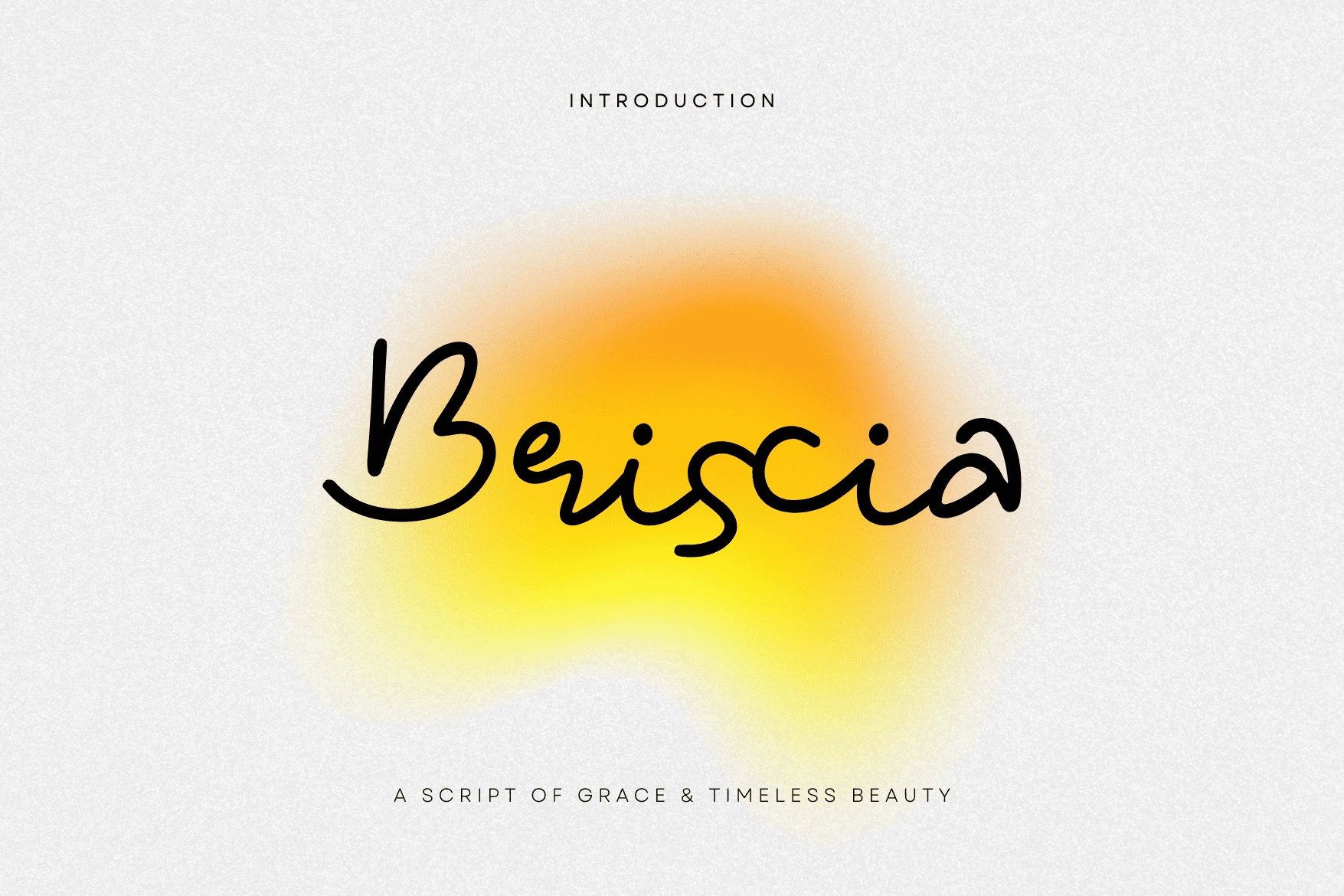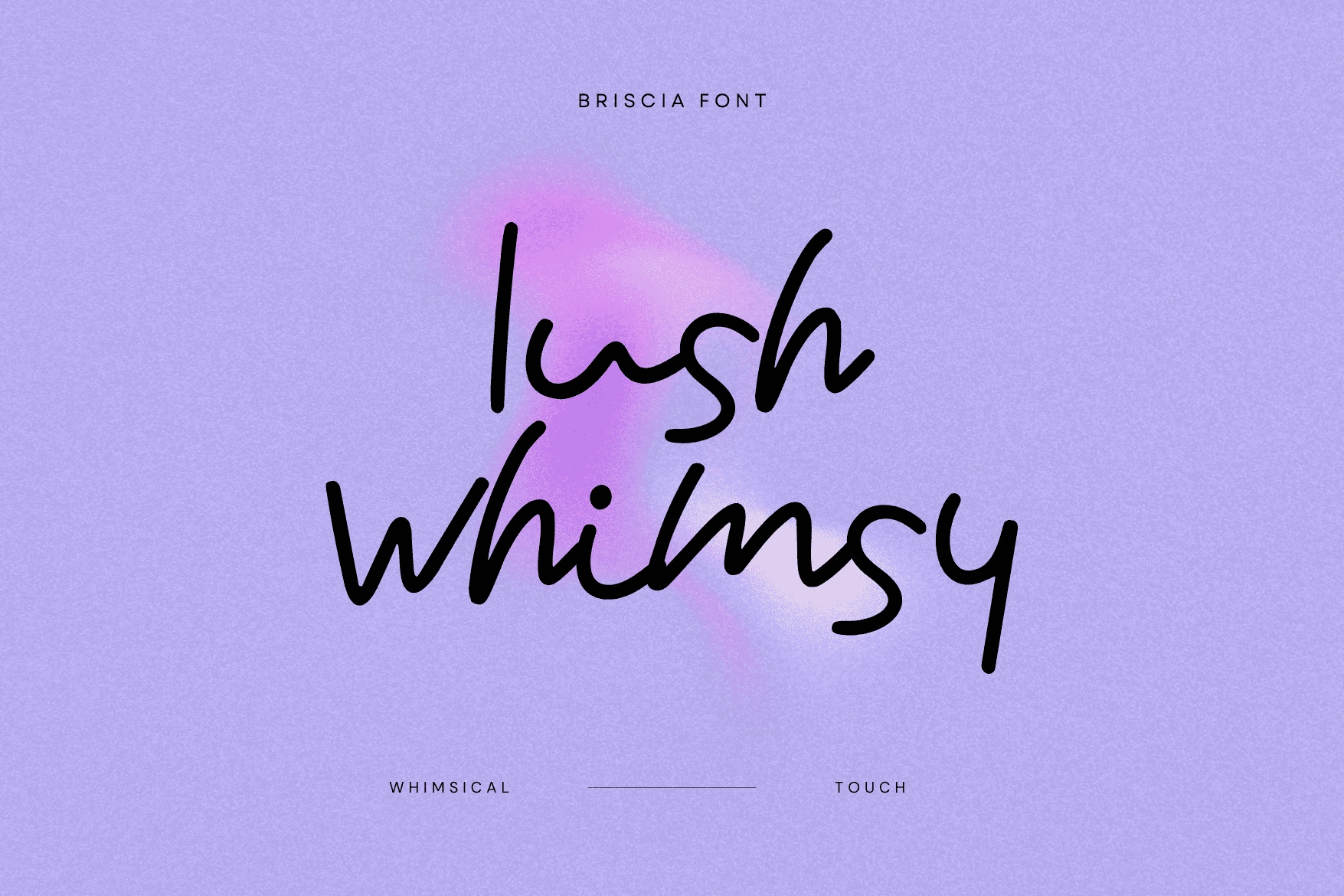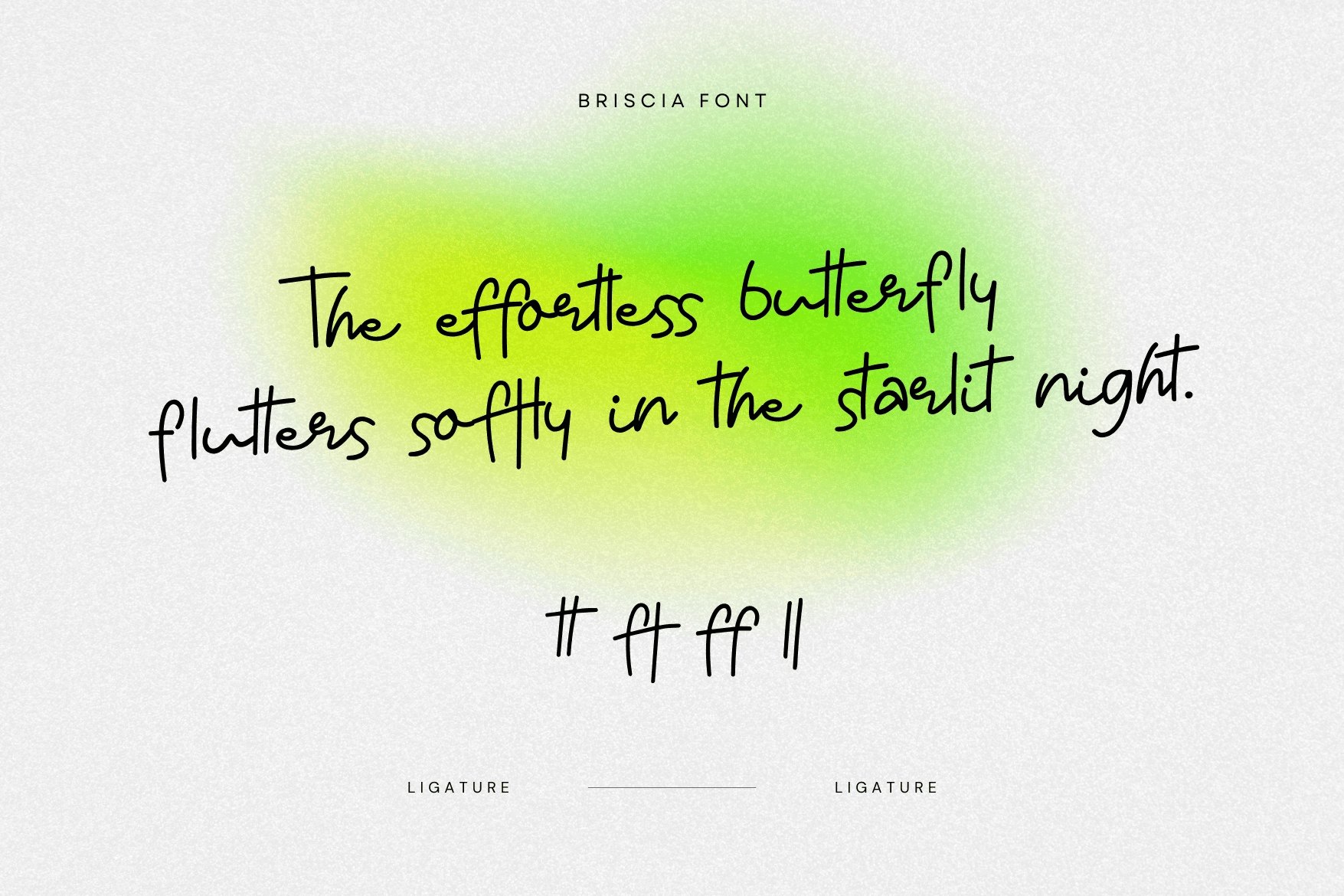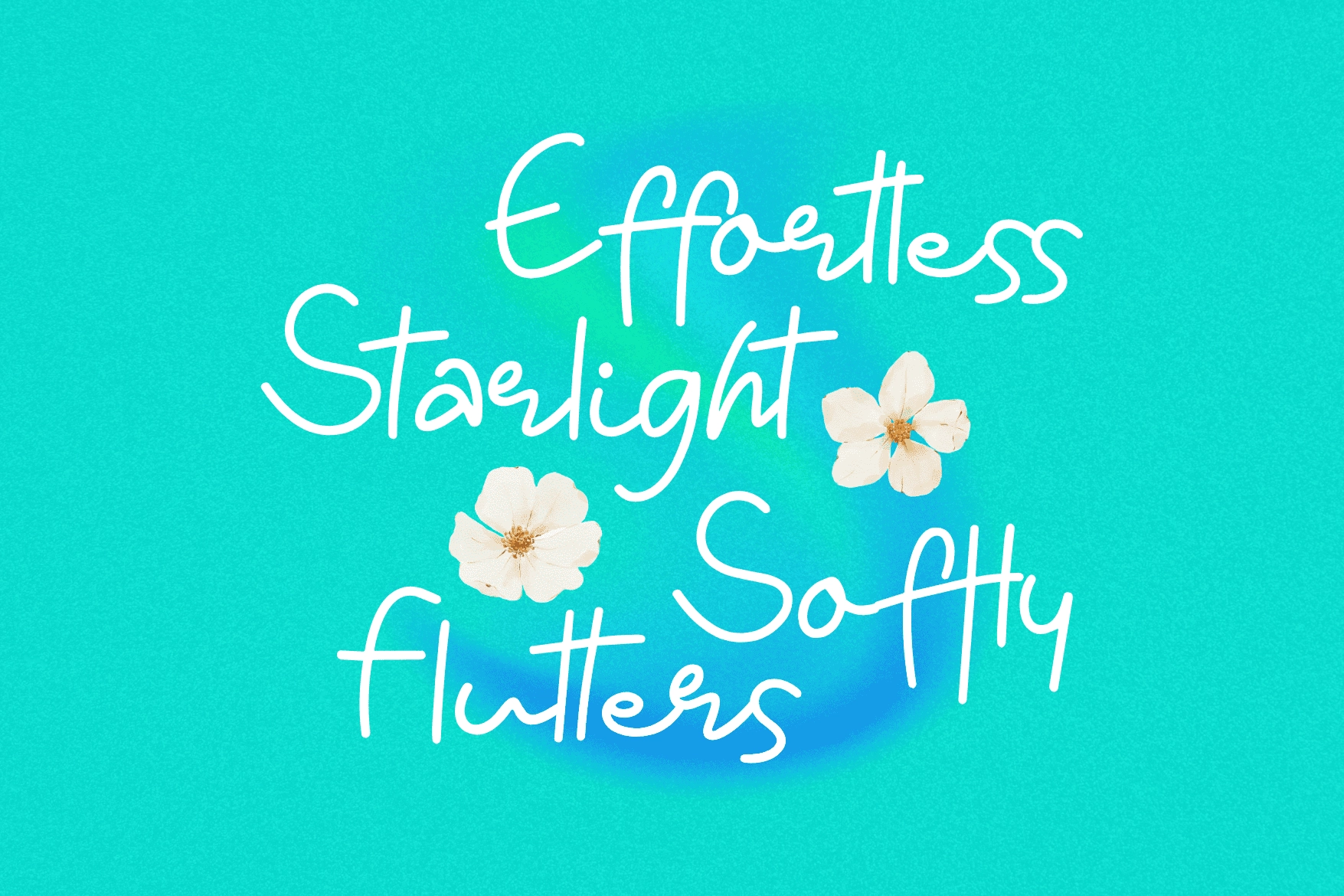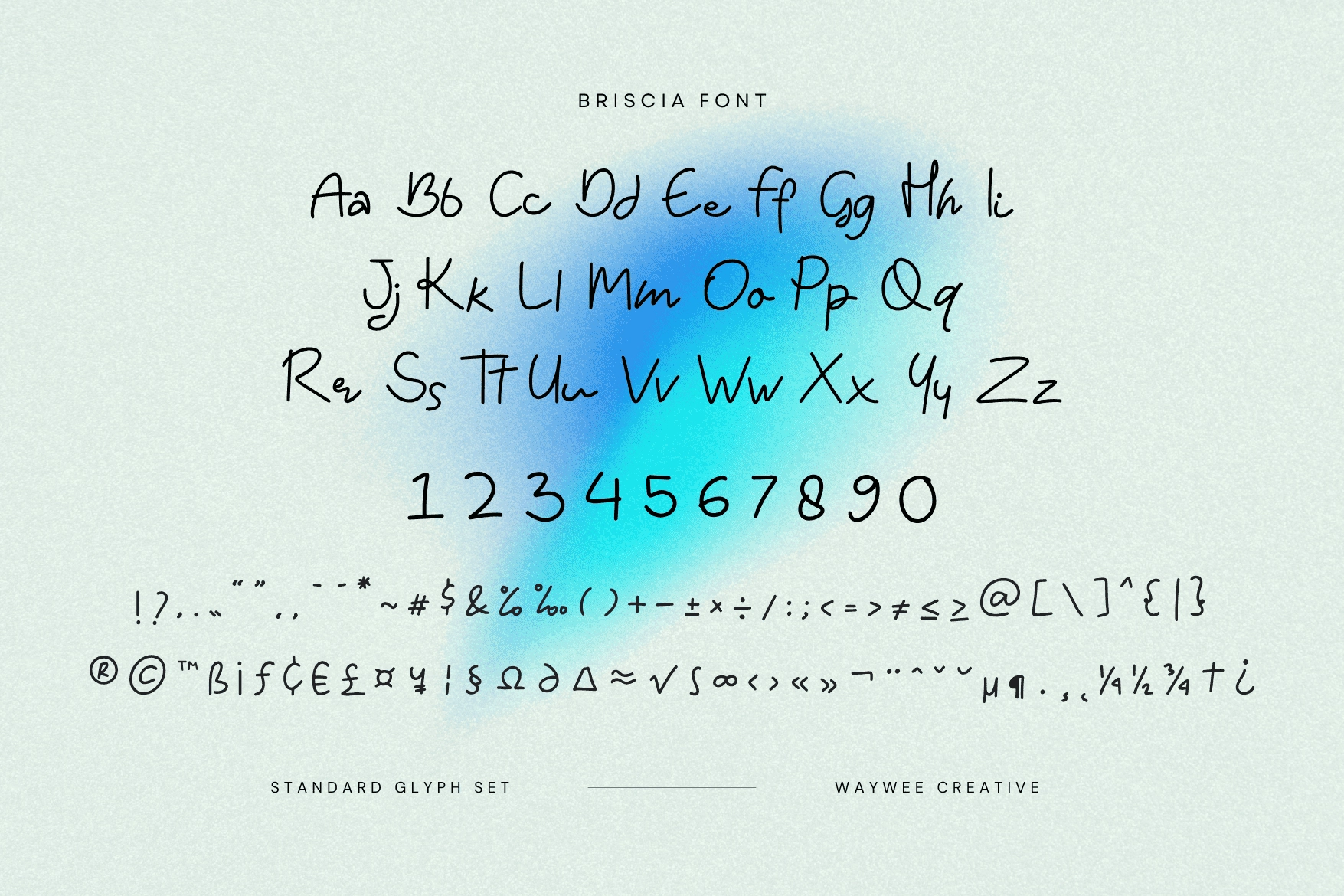
Briscia – A Graceful Script Font
Elegance meets emotion in Briscia, a graceful handwritten C font designed to bring timeless beauty to your creative work.
Every curve flows effortlessly, capturing the essence of modern calligraphy with a refined, feminine touch. Briscia evokes the charm of handwritten letters — soft, poised, and full of personality — making it a perfect choice for branding, invitations, or editorial design.
Crafted with precision and warmth, Briscia is more than just a font — it’s a visual whisper of sophistication.
What’s Inside
- Uppercase & lowercase
- Alternates and ligatures for natural handwriting flow
Let your words dance with grace and intention through Briscia, where elegance feels effortless.